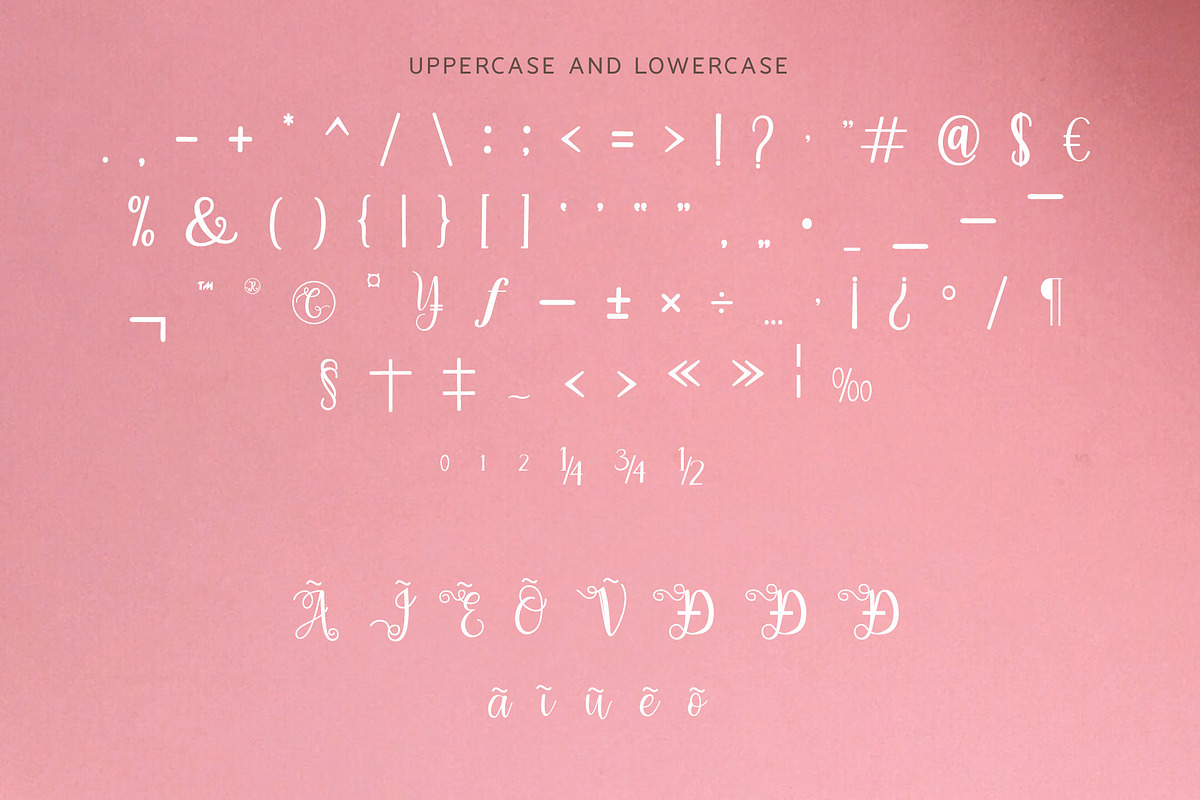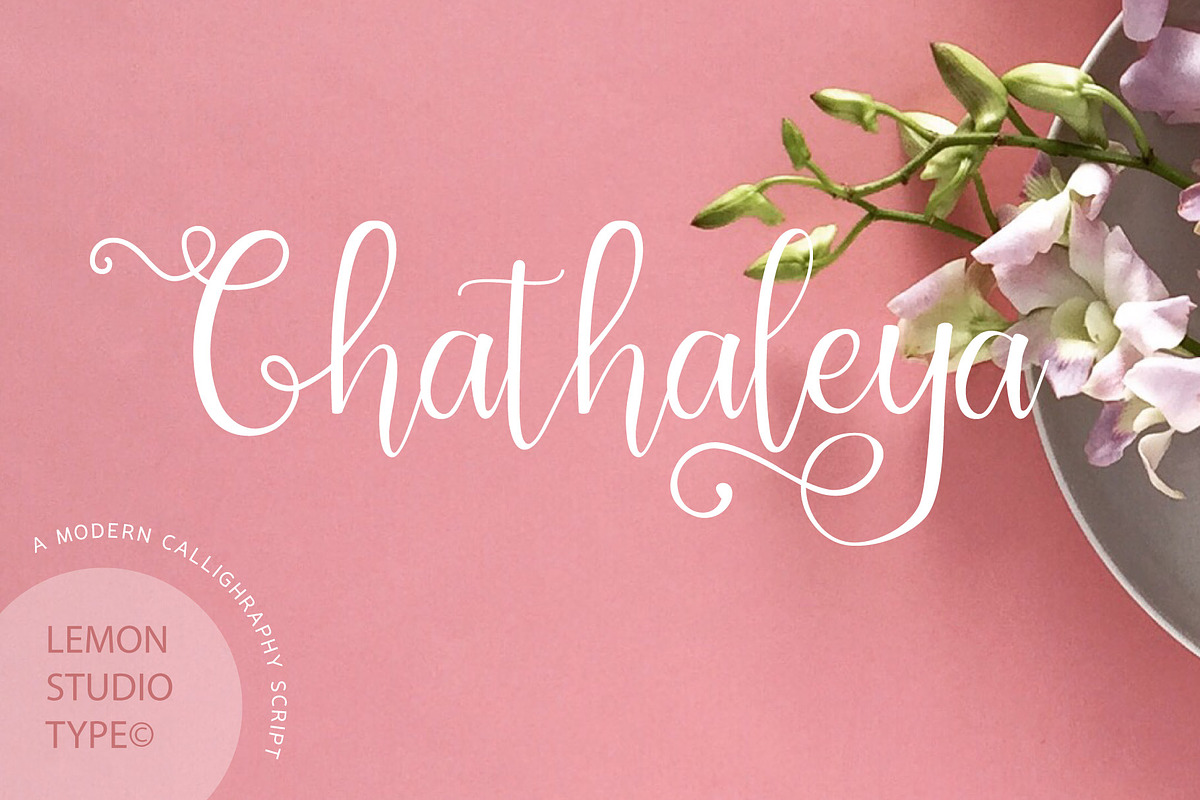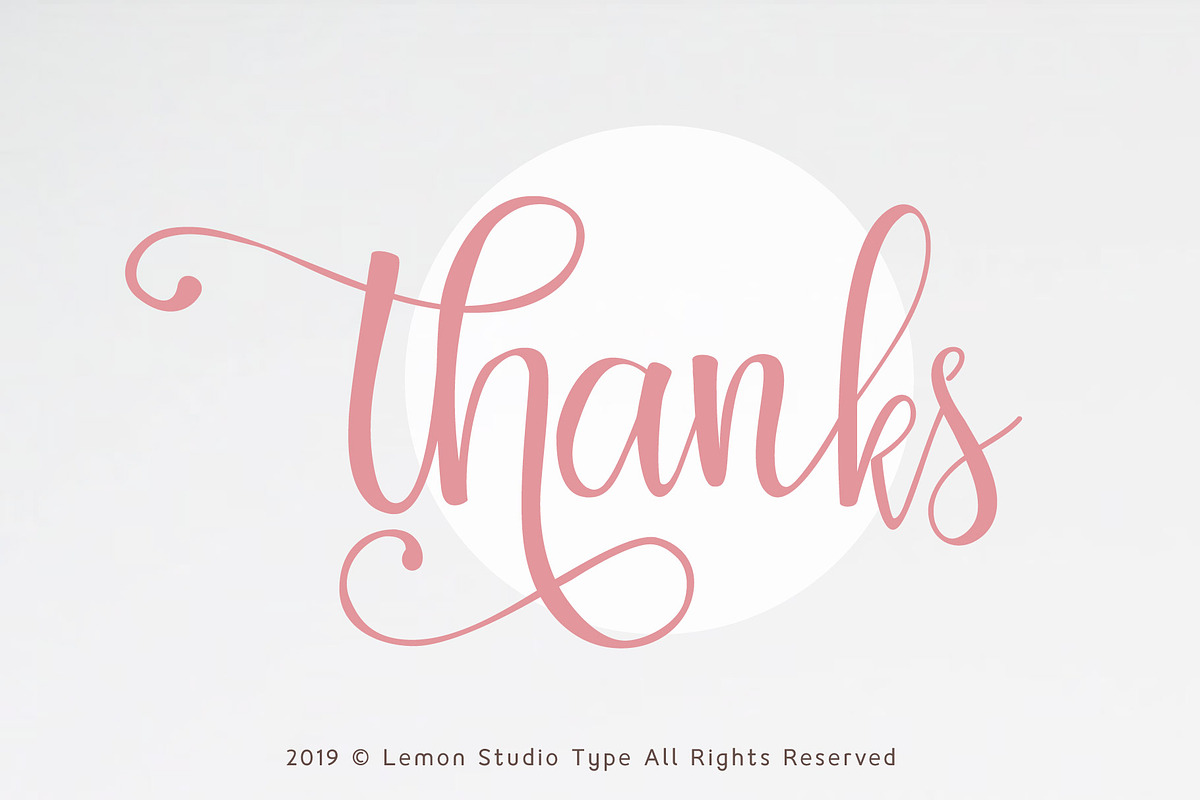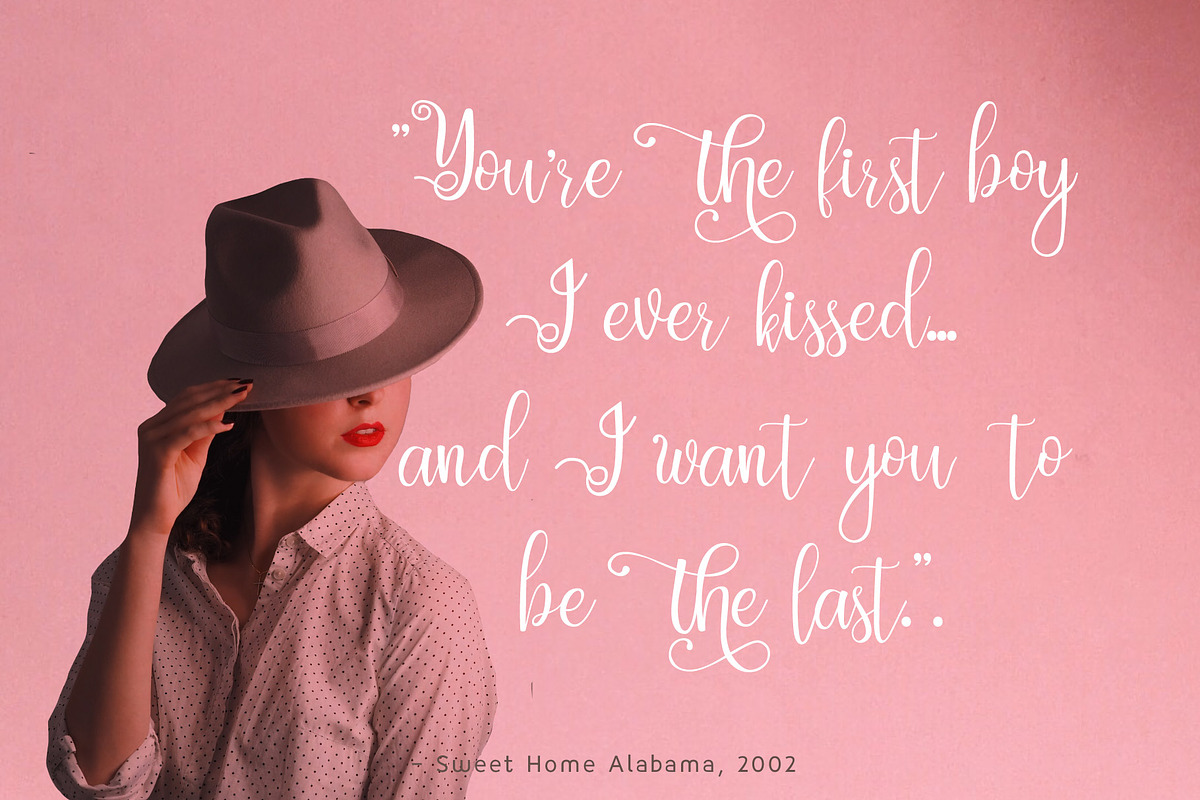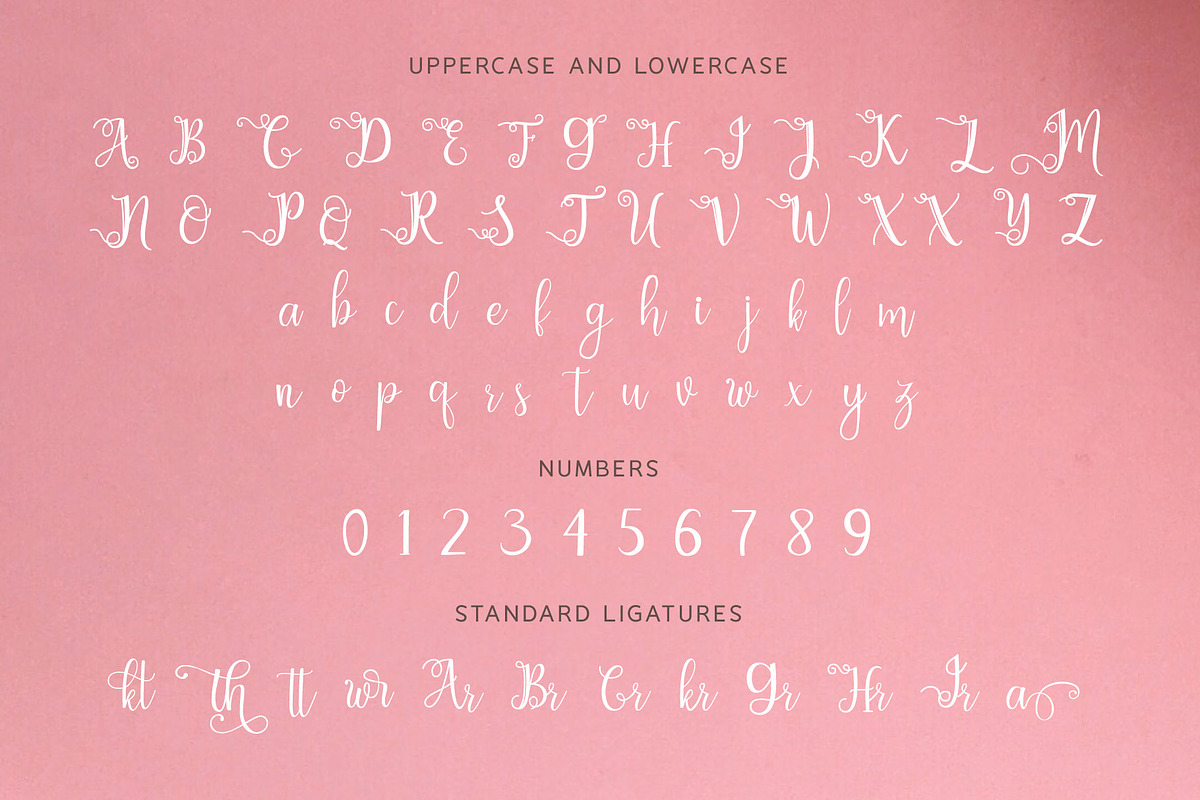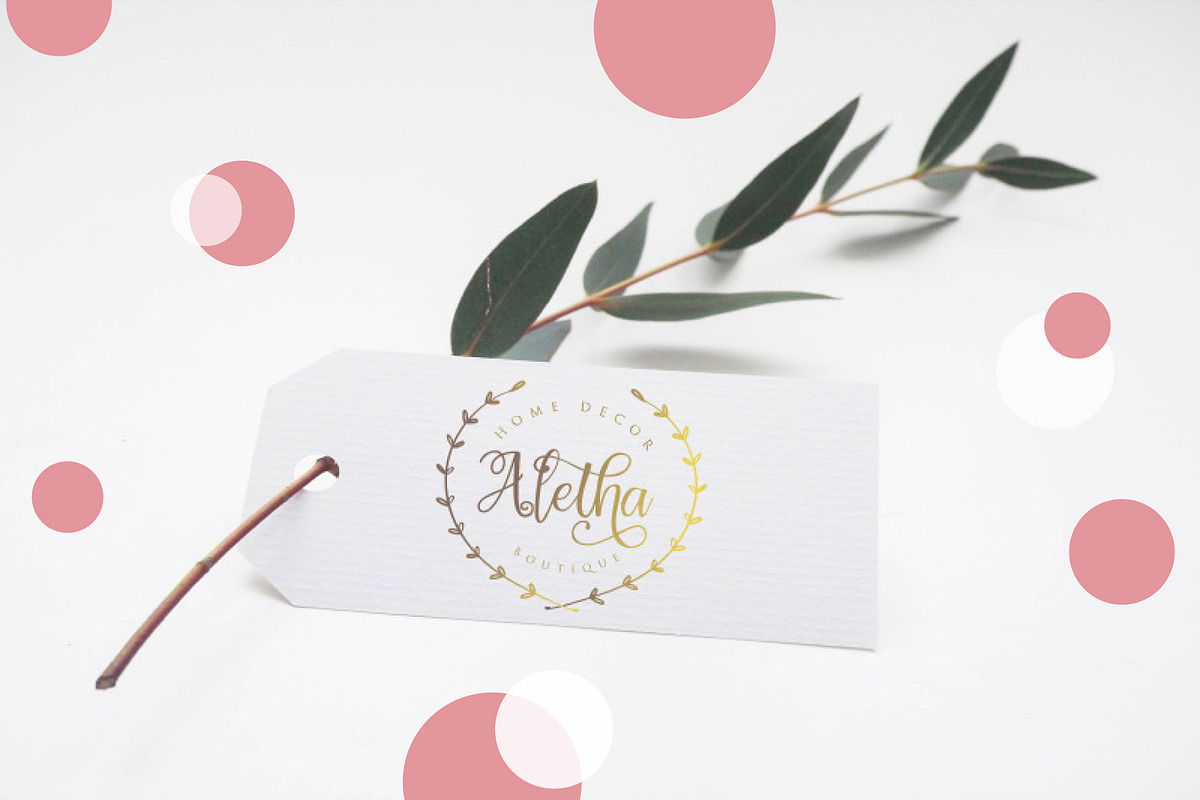
Chathaleya - Modern Script
Chathaleya is a modern calligraphy script. Its elegant style is perfect for logos, branding, invitations, photography, wedding stationary, labels, and every other design which needs an unique and luxurious touch.
STANDARD CHARACTER SET
OPEN TYPE FEATURES:
-Standard Ligatures
-Fractions
-Multilingual Support